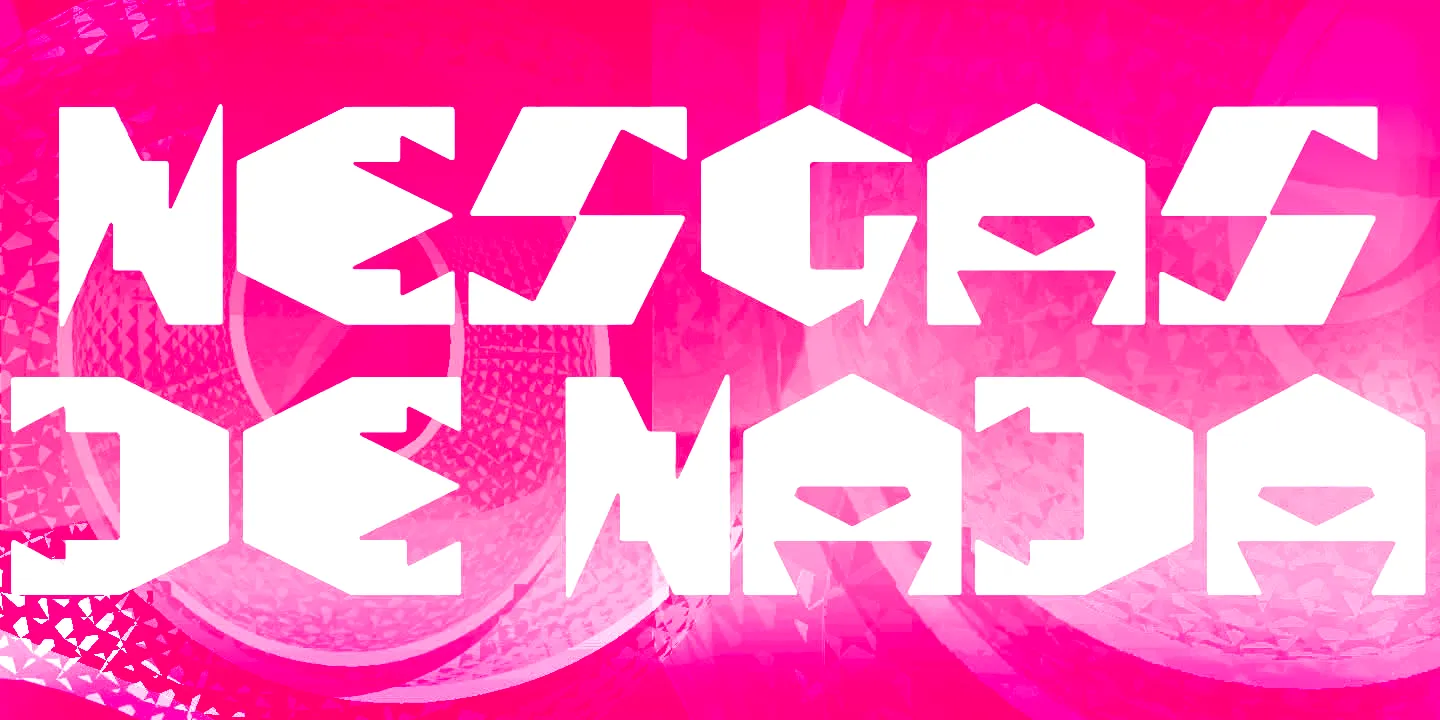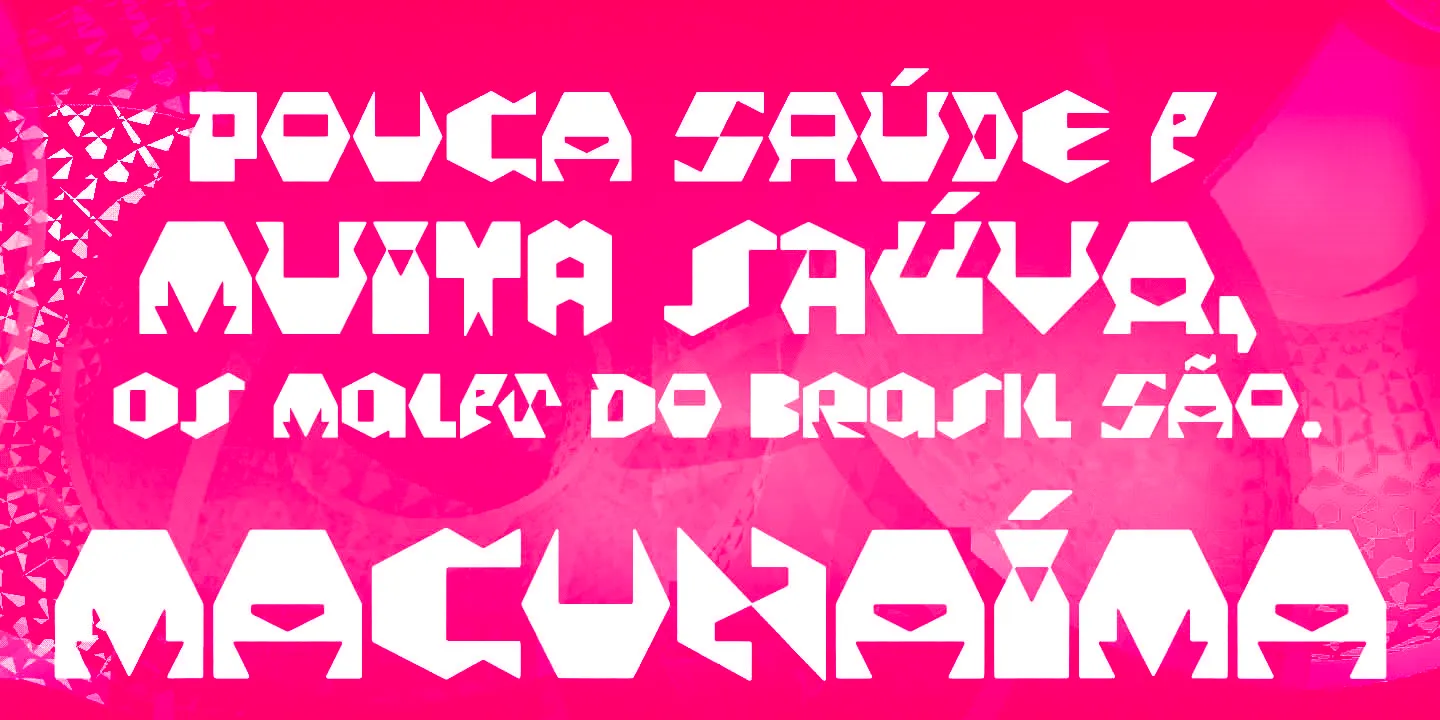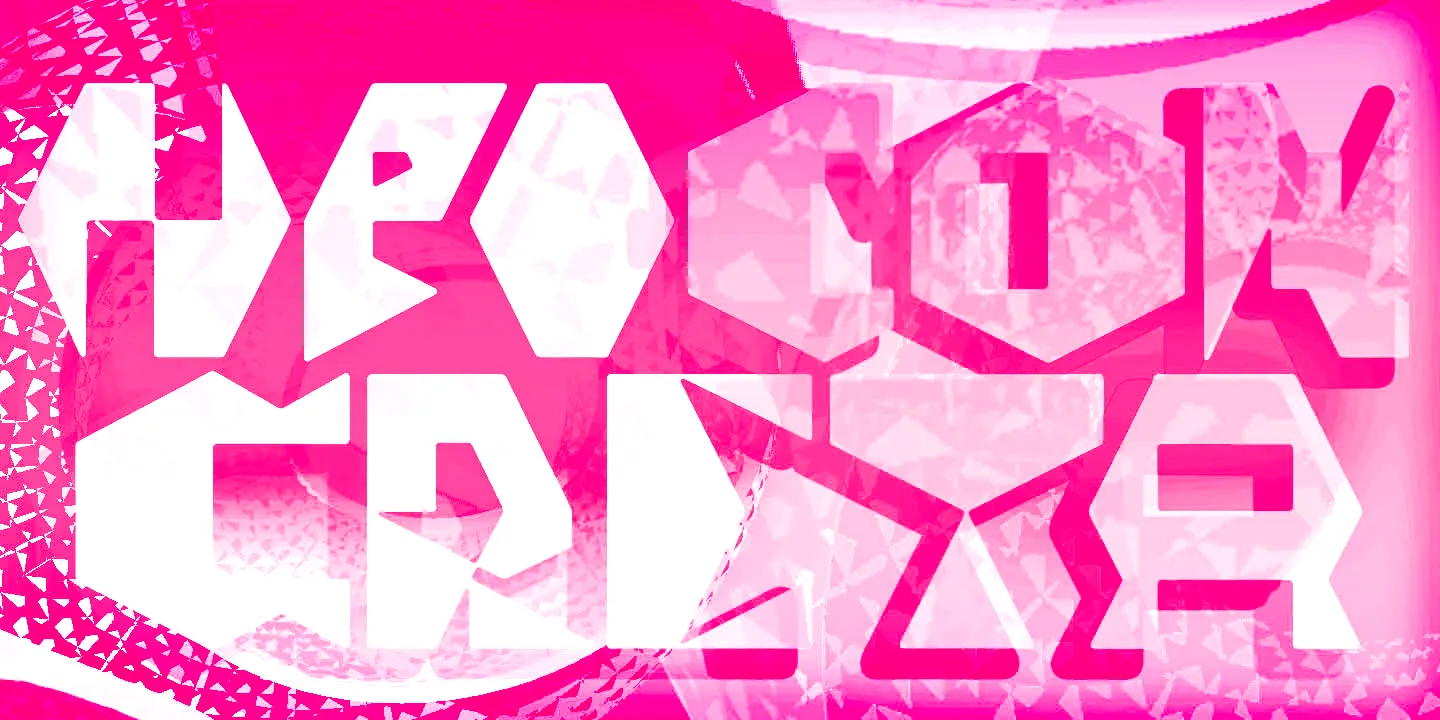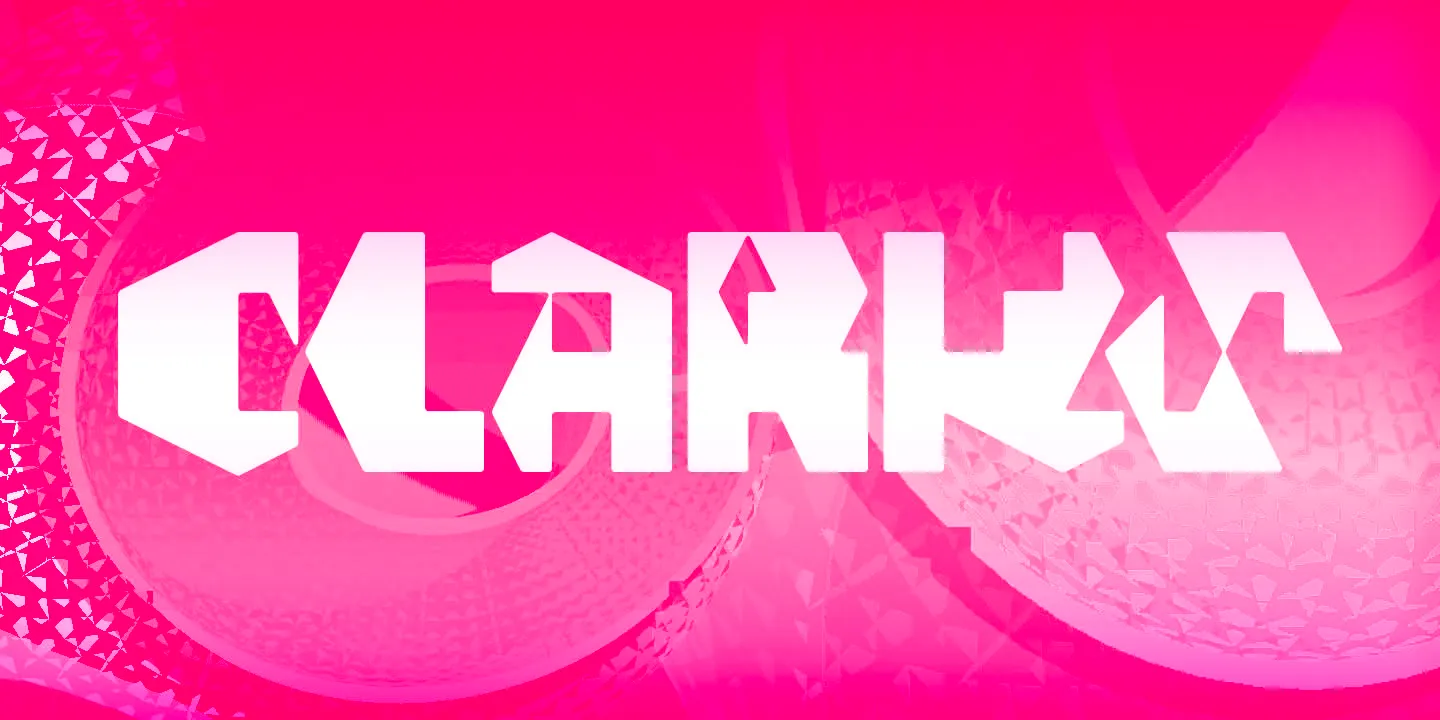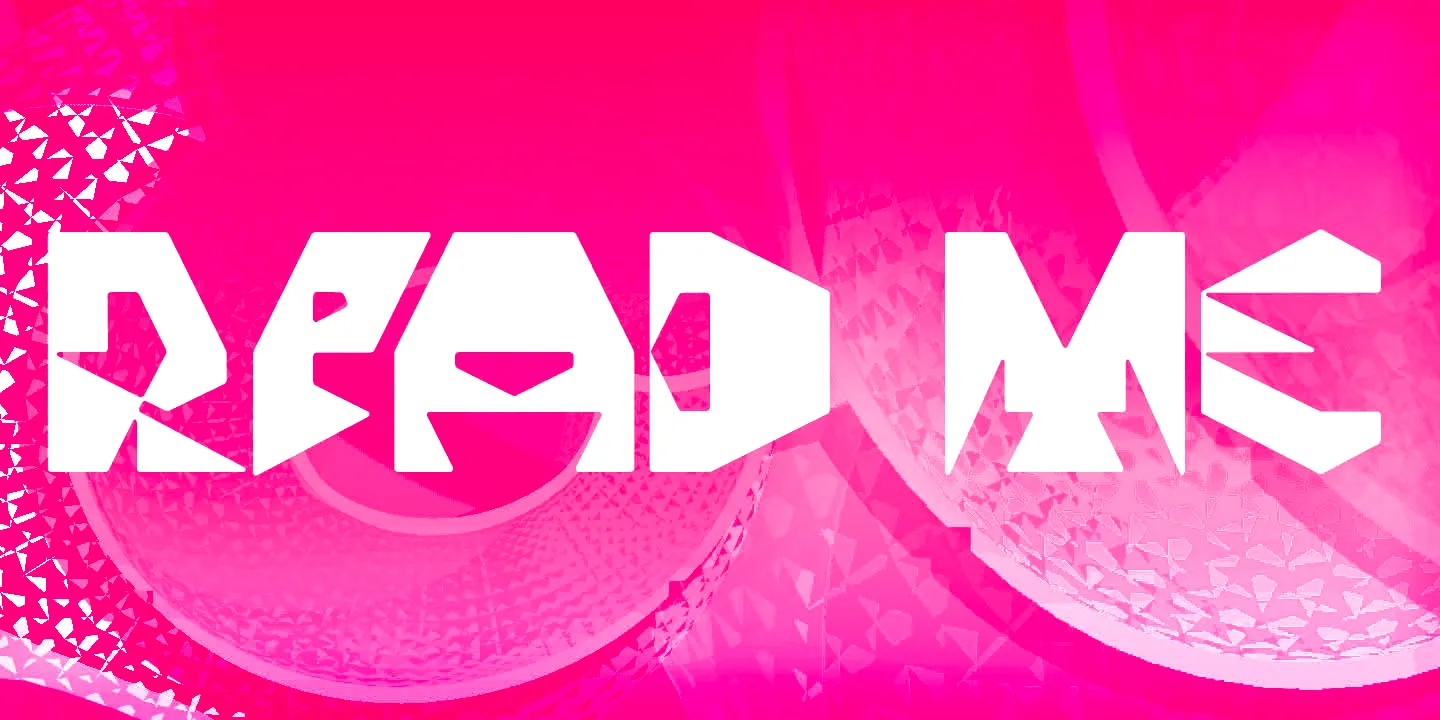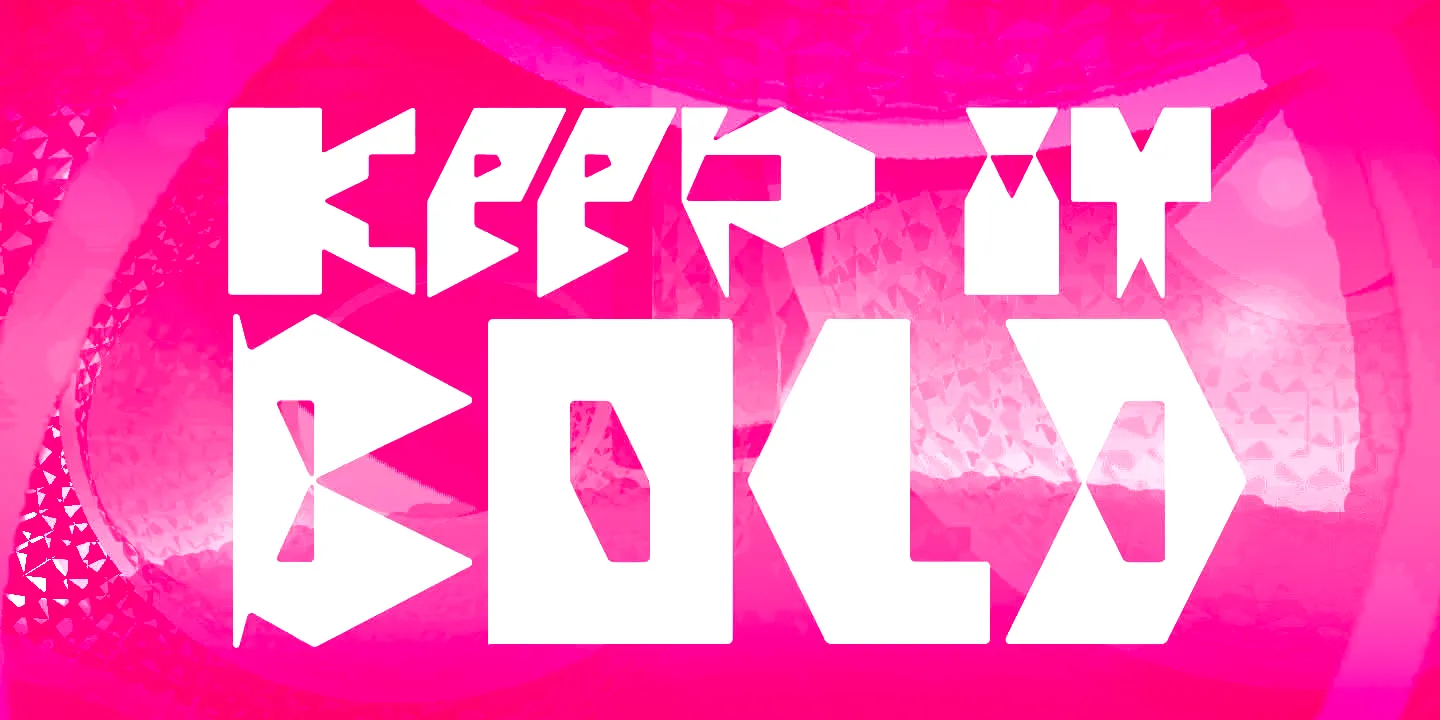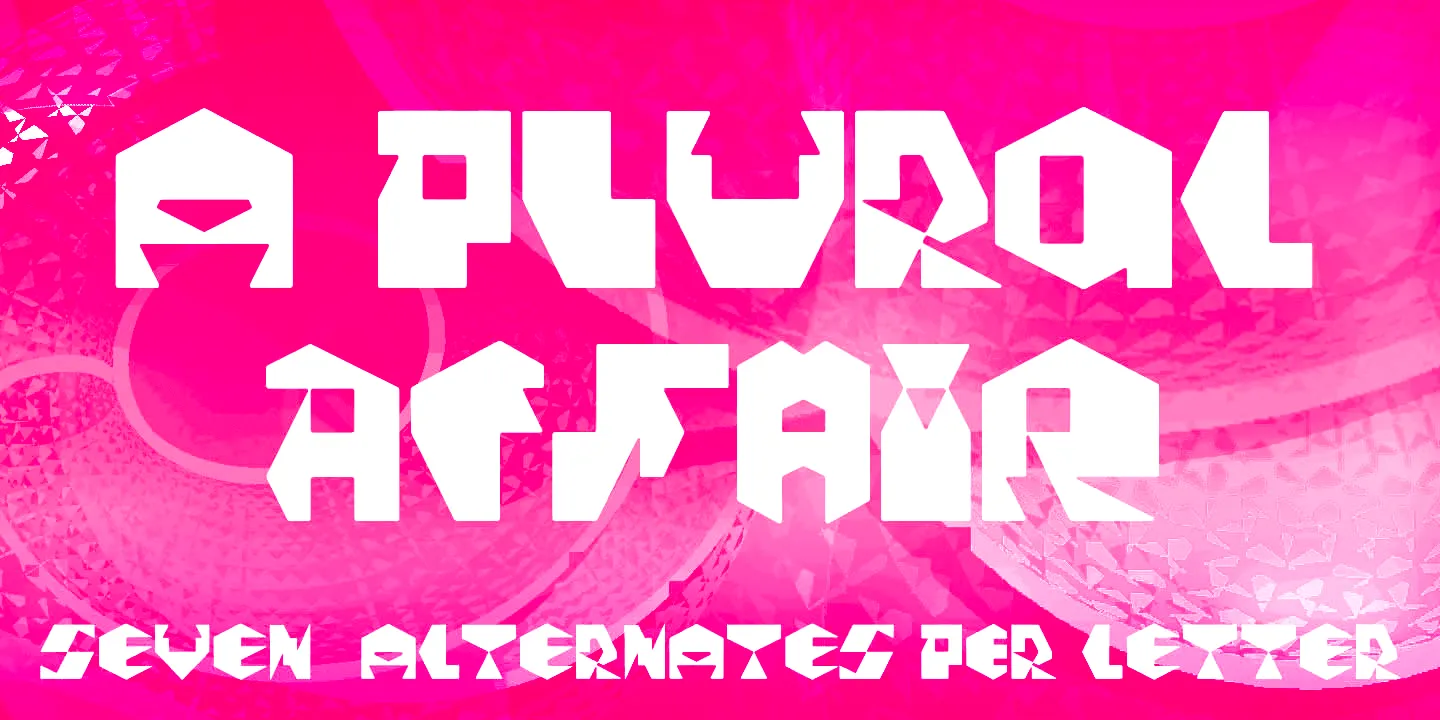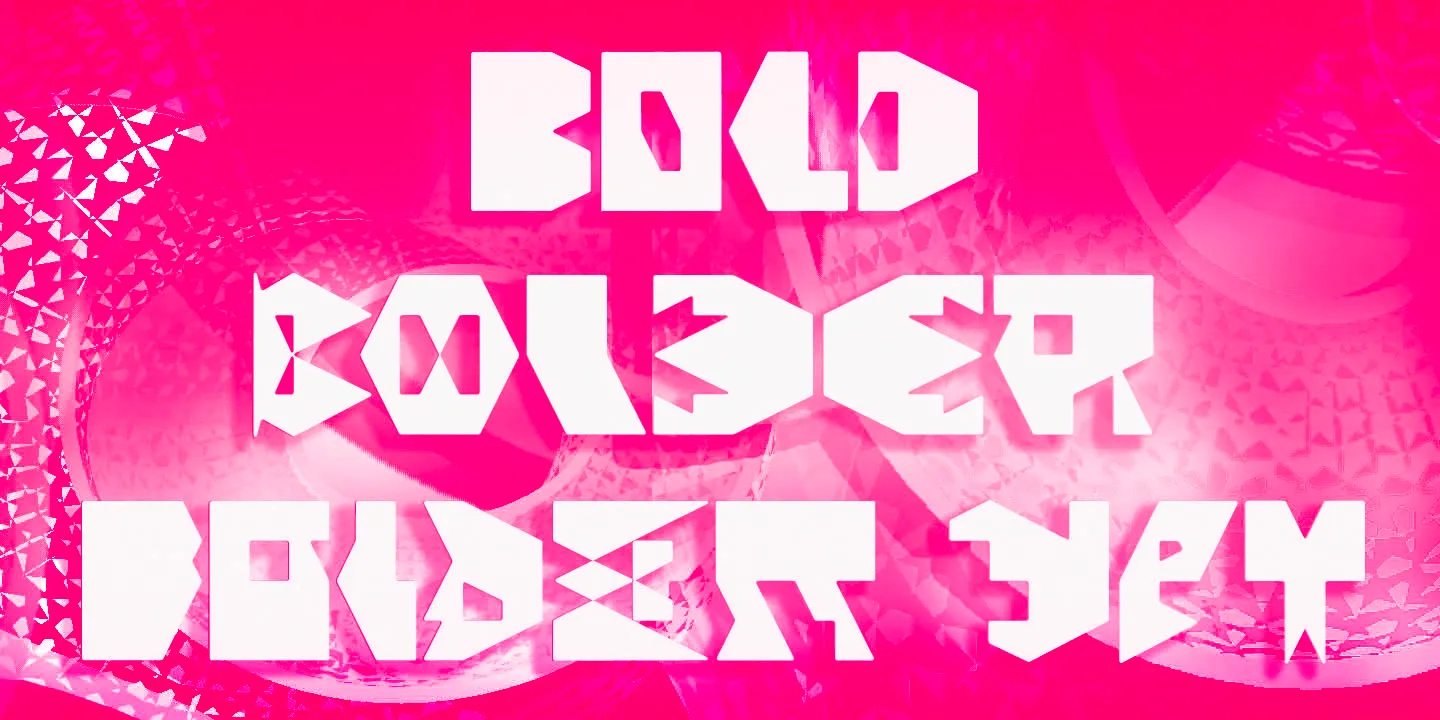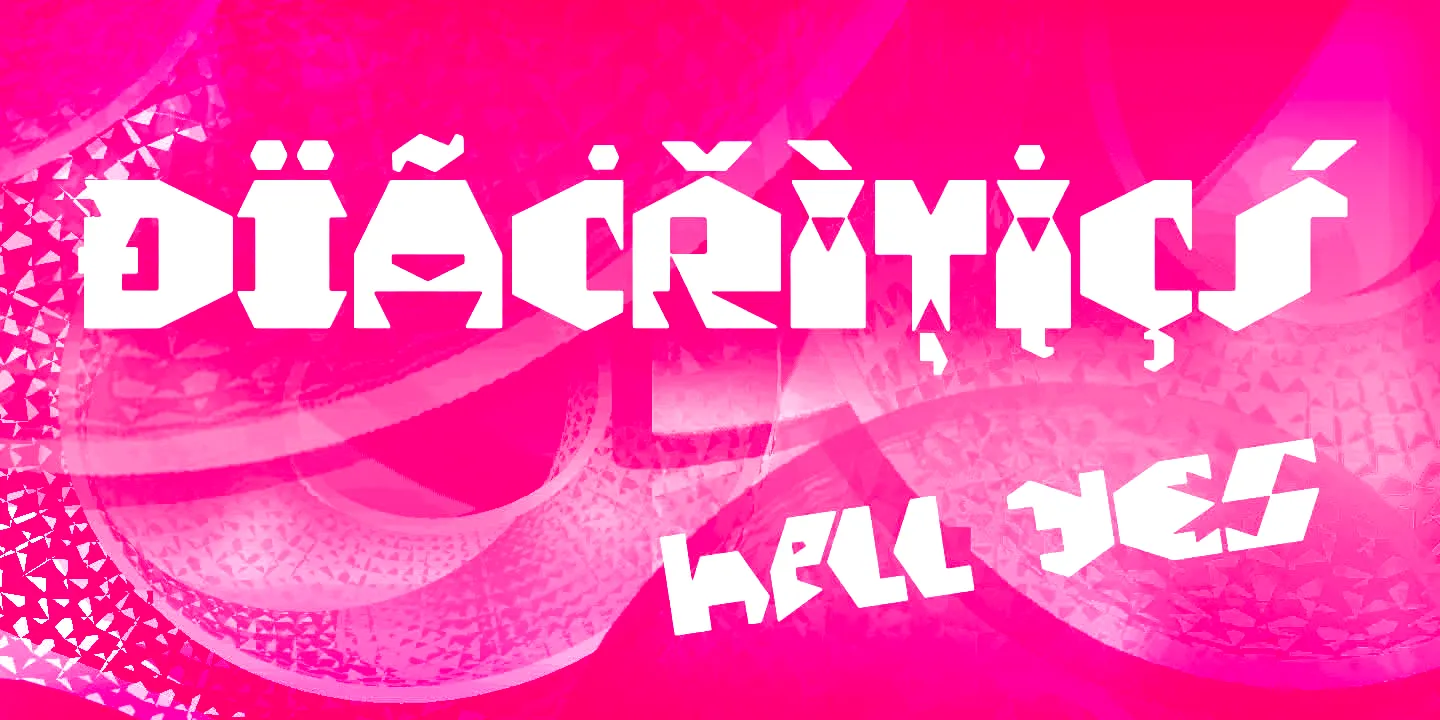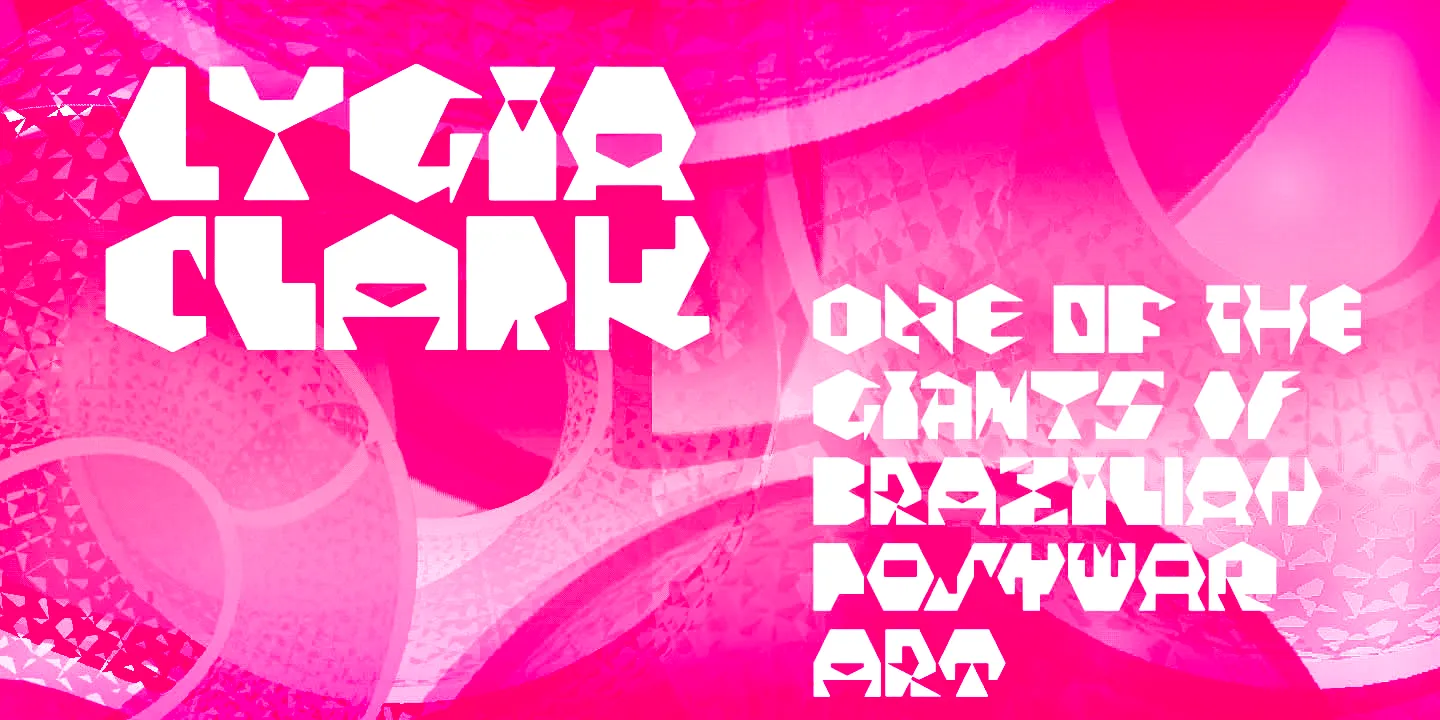
Clarks Font
Clarks
Clarks is a modular typeface inspired by the work of Lygia Clark, one of the giants of Brazilian postwar art. There are choices to both keep and to defy readability. Playing with these is almost hypnotic. Lygia Clark used to invite viewers to touch her works. So, to create this typeface, we fragmented her ‘Planes in Modulated Surface no. 4’ from 1957 and turned, inverted, and recombined it. Now, it is an audacious typeface, and we invite you to put it to work in your designs. Keep it bold, and have fun!